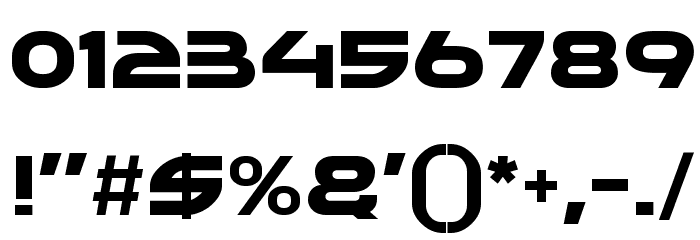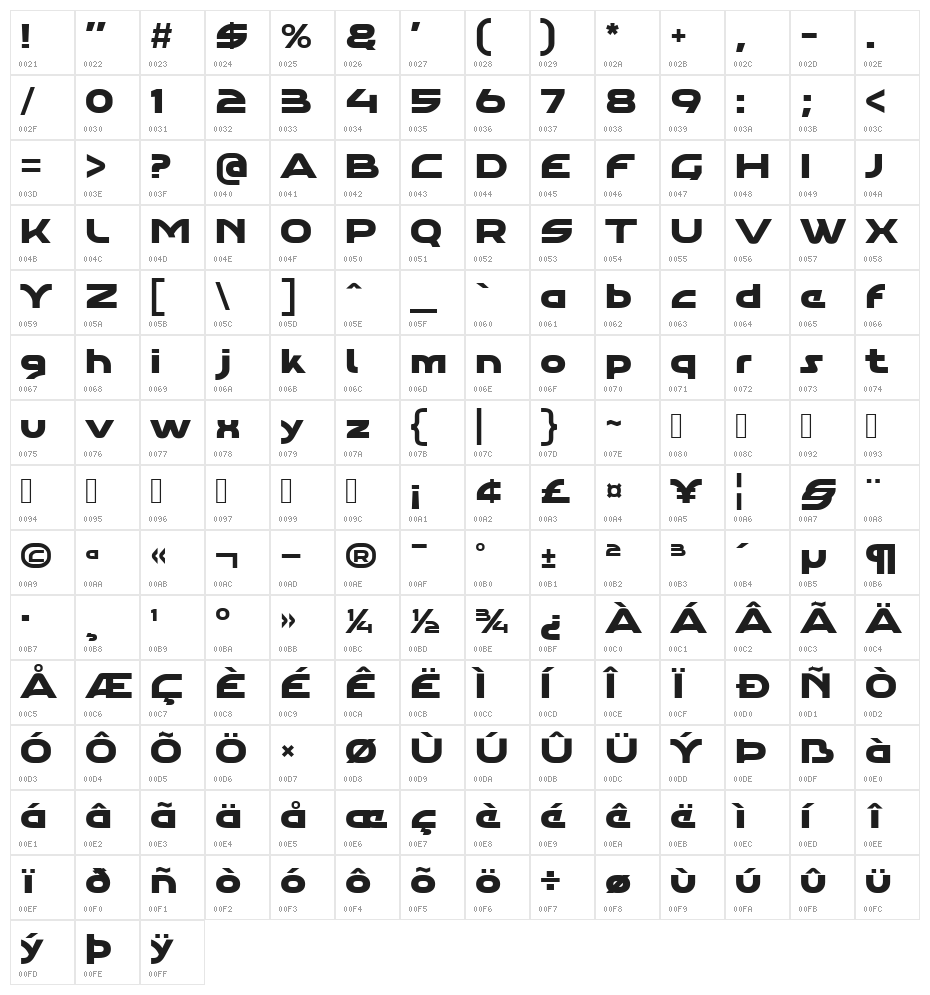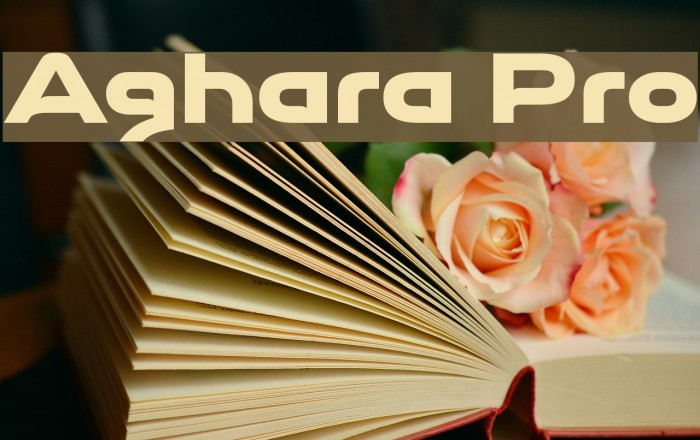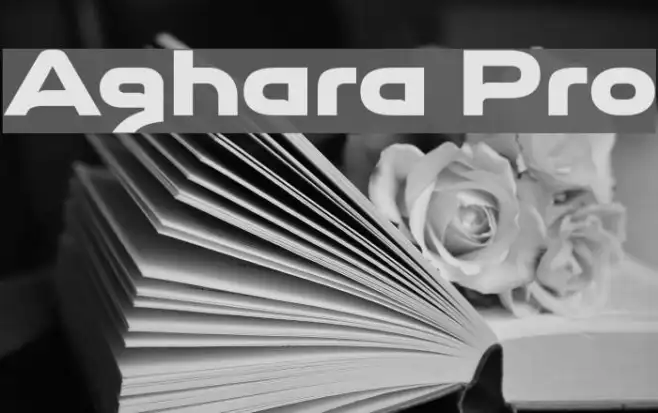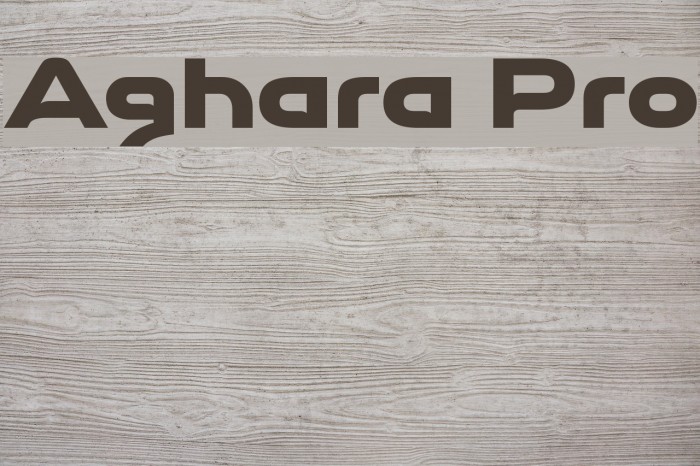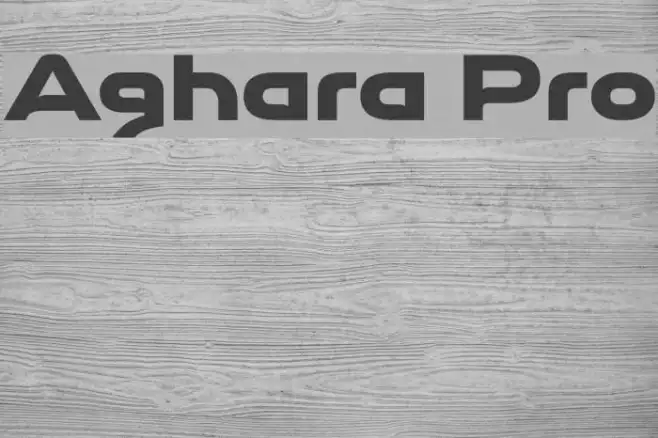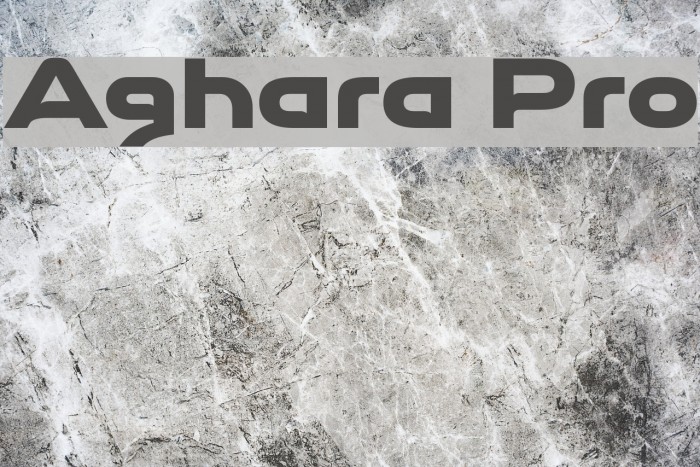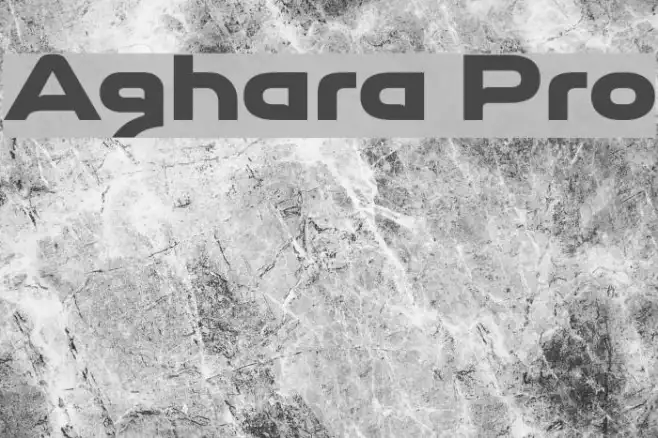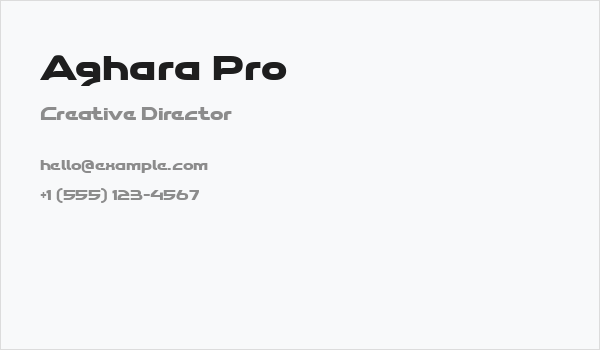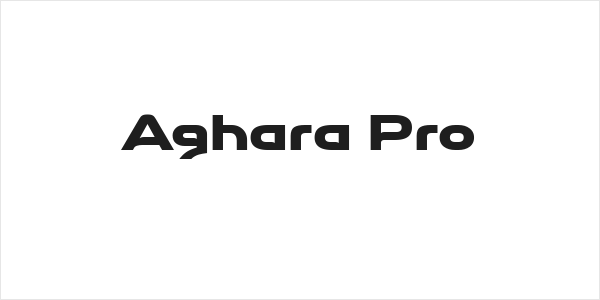
Aghara Pro Font
Aghara Pro Description
This font exhibits a bold and futuristic design with sharp angles and geometric shapes. The uppercase letters are particularly striking, featuring a strong presence that commands attention. The lowercase letters maintain a similar style, ensuring consistency throughout the typeface. Numbers and special characters are crafted with the same boldness, making them ideal for impactful designs. The overall appearance is modern and dynamic, suitable for projects that require a strong visual impact.
Proposed ProjectsIdeal for technology branding, sci-fi posters, video game titles, and modern advertising campaigns.